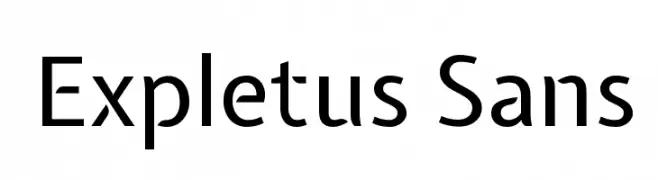
• Expletus Sans SemiBold
A modern, semi-bold sans-serif font with a clean and geometric style.
• Expletus Sans
A modern, geometric sans-serif font with clean lines and balanced proportions.